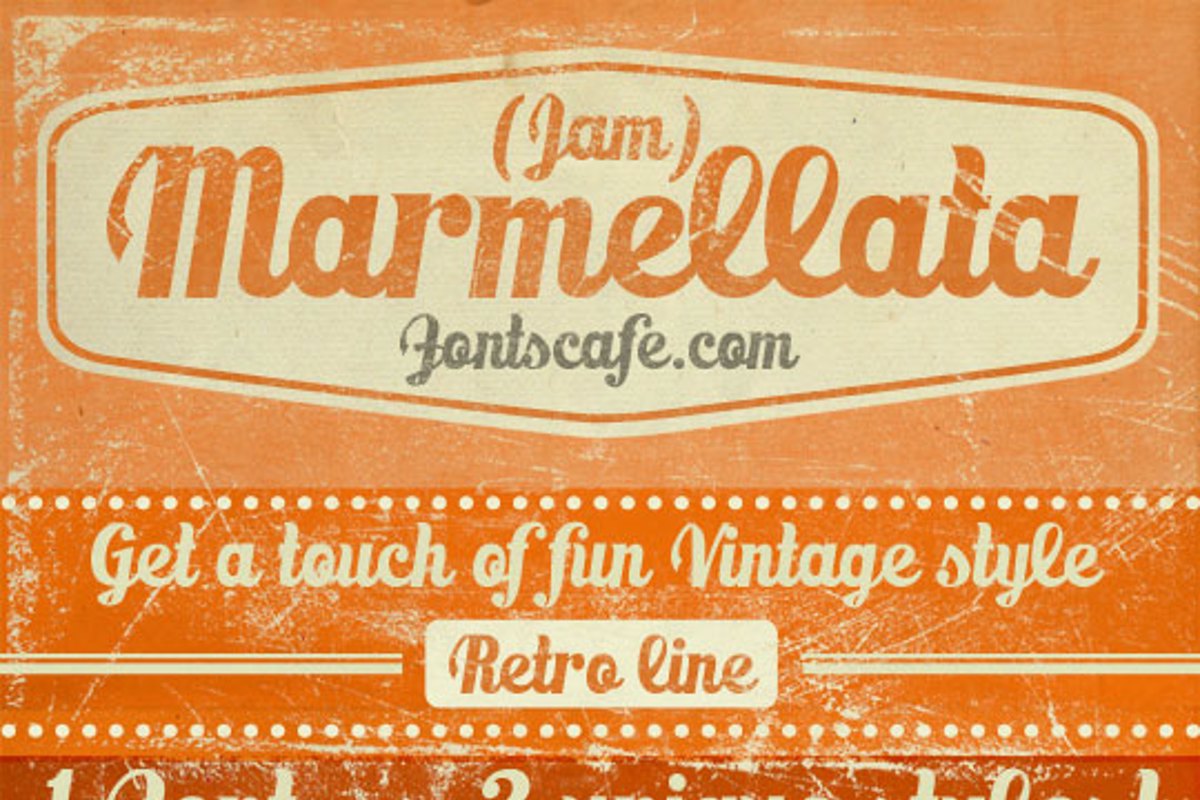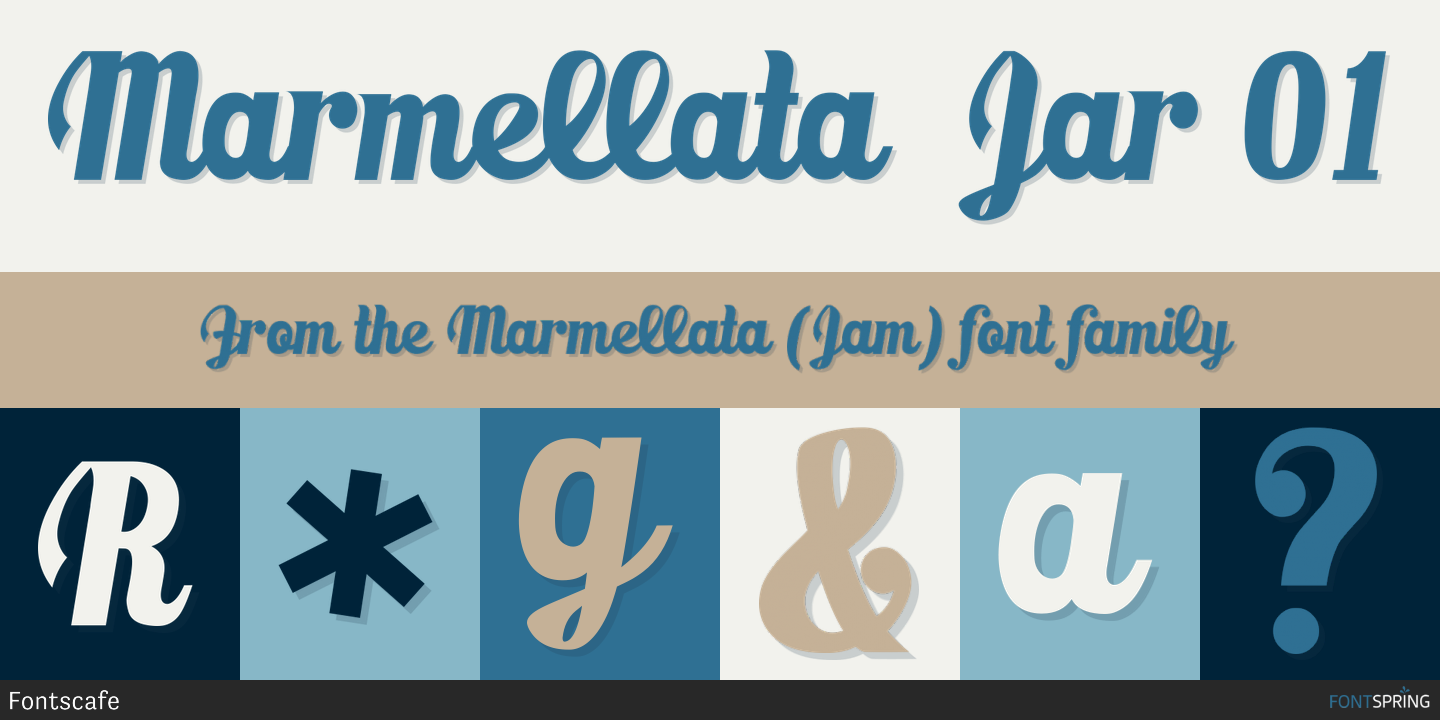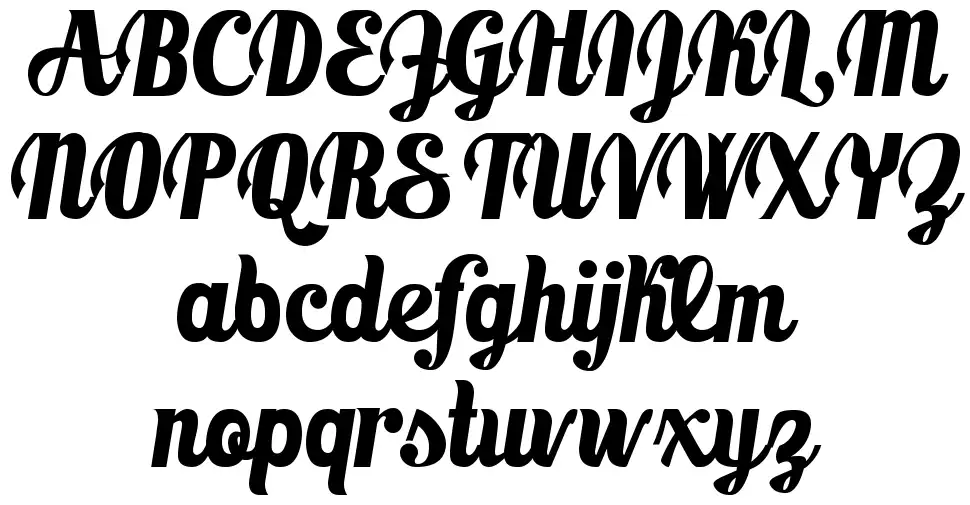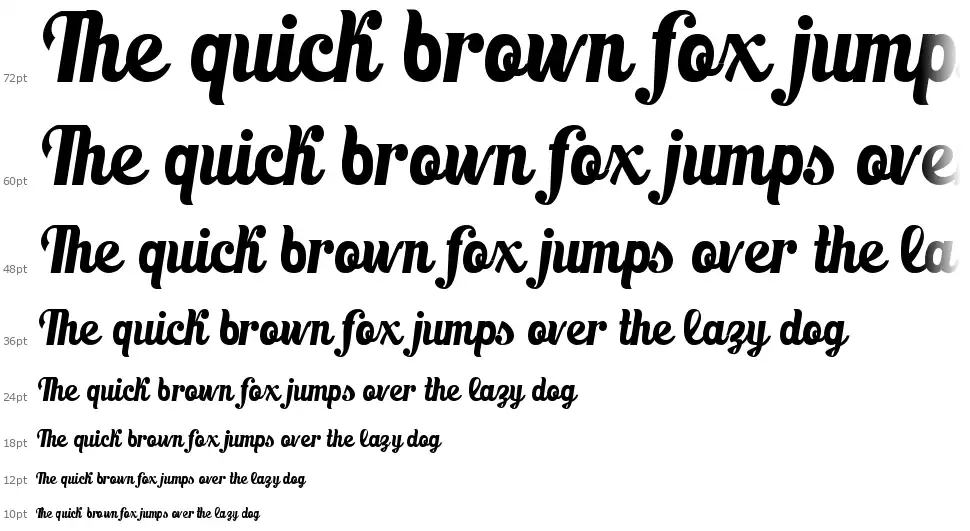
Marmellata Jam Font . marmellata jam font. marmellata jam font download is available free from fontget. Free for personal use only. One font, three unique styles…and more! download free marmellata jam font, view its character map and generate text. marmellata, or italian for ‘jam’ brings to mind images of freshly baked breads, breakfast tables and generally a homely disposition,. Marmellata jam is a script type font that can be used on any. One font, three unique styles.and more! free download of marmellata (jam)_demo font. Free for personal use only. One font, three unique styles…and more! when you think of marmalade or jam (that’s marmellata in italian), images of a happy breakfast table are conjured up into the mind, with of. Click now to create a custom image with your own words that you can download. Free for personal use only.
Marmellata jam is a script type font that can be used on any. when you think of marmalade or jam (that’s marmellata in italian), images of a happy breakfast table are conjured up into the mind, with of. marmellata jam font download is available free from fontget. Click now to create a custom image with your own words that you can download. Free for personal use only. download free marmellata jam font, view its character map and generate text. One font, three unique styles.and more! marmellata jam font. One font, three unique styles…and more!
Marmellata Jam Font when you think of marmalade or jam (that’s marmellata in italian), images of a happy breakfast table are conjured up into the mind, with of. Free for personal use only. One font, three unique styles.and more! One font, three unique styles…and more! Marmellata jam is a script type font that can be used on any. Click now to create a custom image with your own words that you can download. One font, three unique styles…and more! marmellata jam font. free download of marmellata (jam)_demo font. marmellata jam font download is available free from fontget. when you think of marmalade or jam (that’s marmellata in italian), images of a happy breakfast table are conjured up into the mind, with of. Free for personal use only. download free marmellata jam font, view its character map and generate text. Free for personal use only. marmellata, or italian for ‘jam’ brings to mind images of freshly baked breads, breakfast tables and generally a homely disposition,.
Marmellata Jam font by FontRiver Marmellata Jam Font marmellata jam font download is available free from fontget. free download of marmellata (jam)_demo font. marmellata jam font. Free for personal use only. Marmellata jam is a script type font that can be used on any. Free for personal use only. marmellata, or italian for ‘jam’ brings to mind images of freshly baked breads, breakfast tables. Marmellata Jam Font.
Marmellata Jam + Amy Butler Cameo Harriet's Kitchen Sugar Flickr Marmellata Jam Font free download of marmellata (jam)_demo font. marmellata jam font download is available free from fontget. download free marmellata jam font, view its character map and generate text. Marmellata jam is a script type font that can be used on any. One font, three unique styles…and more! Click now to create a custom image with your own words. Marmellata Jam Font.
"Marmellata (Jam) Pack" font Fonts Cafe Marmellata Jam Font Free for personal use only. when you think of marmalade or jam (that’s marmellata in italian), images of a happy breakfast table are conjured up into the mind, with of. Click now to create a custom image with your own words that you can download. Free for personal use only. One font, three unique styles.and more! marmellata, or. Marmellata Jam Font.